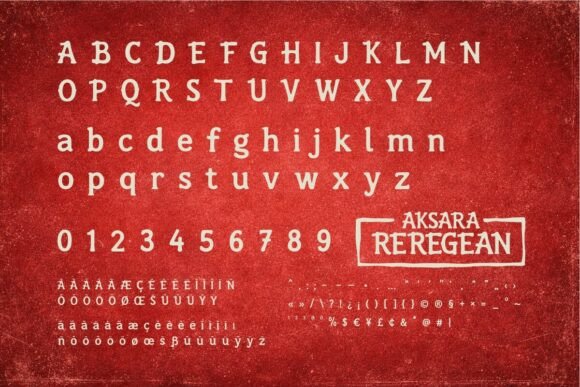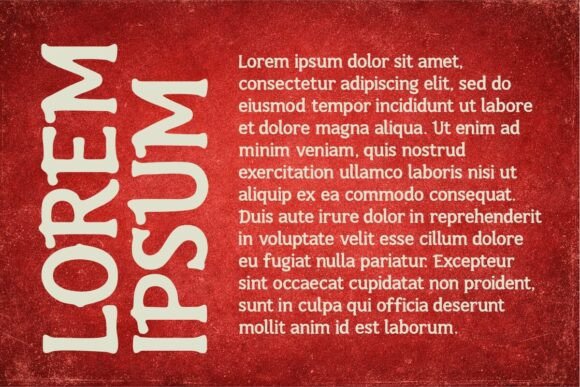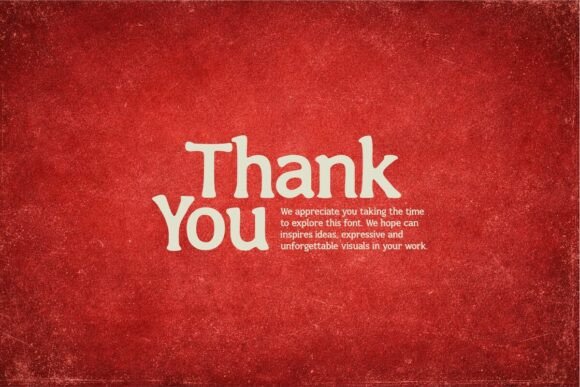
I still remember the frustration of working on a high-end branding project, only to hit a roadblock: finding the perfect font. My client wanted something luxurious, timeless, and bespoke, but everything I found was either too generic or too over-the-top. That’s when I stumbled upon Aksara Reregean, a typographic masterpiece that would change the game. In this article, I’ll share my experience with this stunning display font, its features, and how to make the most of it in your designs.
Introducing Aksara Reregean: A Masterpiece of Elegance
Aksara Reregean is the complete evolution and refinement of its predecessor, the “Reregean” font. Every anatomical detail, serif curve, and kerning proportion has been meticulously fine-tuned to deliver a display font that exudes luxury heritage with a strong classic touch. The characters are designed to stand out with bold, confident serifs and natural, ornate curves, making it the premier choice for designers looking to emphasize a timeless, custom-crafted aesthetic.
What I Love About Aksara Reregean ✨
- ✅ Elegant and precise design, perfect for high-end commercial projects
- ✅ Strong classic touch with a luxurious heritage aura
- ✅ Bold, confident serifs and natural, ornate curves
- ✅ Meticulously fine-tuned details for a polished look
While Aksara Reregean is an exceptional font, there are a few things to keep in mind:
- 🤔 May require adjustments for smaller font sizes or body text
- ⚠️ Limited suitability for very informal or playful designs
The Designer Inspiration Behind Aksara Reregean
According to the designers, Aksara Reregean was inspired by the rich cultural heritage of traditional typography. The goal was to create a font that would evoke a sense of luxury and timelessness, while still being versatile and adaptable to various design contexts. Through meticulous refinement and attention to detail, Aksara Reregean was born – a true masterpiece of typographic design.
| Font Name | Aksara Reregean Font |
| Author | Eko Kurniawan |
| What is Aksara Reregean? | Aksara Reregean is a display font that serves as a complete evolution and refinement of its predecessor, the “Reregean” font. |
| What makes Aksara Reregean unique? | Aksara Reregean is characterized by its elegant and precise design, strong classic touch, and luxurious heritage aura. |
| Can I use Aksara Reregean for body text? | While Aksara Reregean is suitable for display text, it may require adjustments for smaller font sizes or body text. |
| Is Aksara Reregean suitable for informal designs? | Aksara Reregean is best suited for formal or high-end designs, and may not be the best choice for very informal or playful projects. |